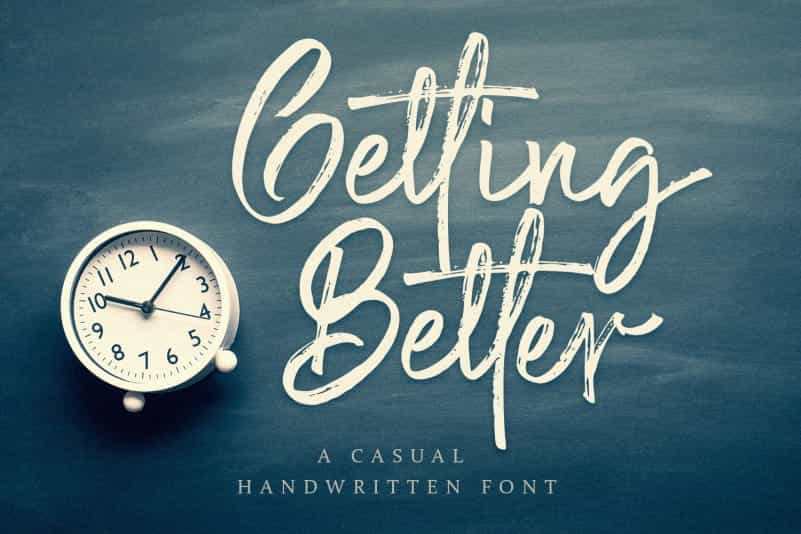
Discover Getting Better Font, part of the Brush Script Personal collection—a versatile and unique font perfect for adding a personal touch to your projects. Download it for free and enjoy crafting designs with style, from invitations to social media posts. This font is available exclusively for personal use, giving you the freedom to create without limits. Unlock your creativity with Getting Better Font today!
Getting Better Font brings a unique touch to any design related project, whether it is logos, stationery, branding, typography quotes, book or magazine covers, headers, websites, packaging, clothing, branding design, restaurant signage and much more.